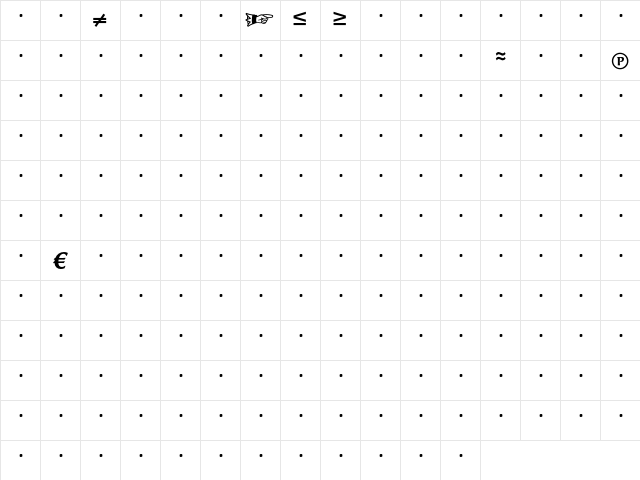
Angie BoldItalicExpert
Design Context for Angie Typeface
Angie offers clean, dependable letterforms without strong stylistic allegiance, making it a practical choice for designers who need flexibility. Its italic angle brings a sense of urgency and motion to the letterforms. The heavy weight commands attention and anchors typographic hierarchies.
Pro Tip: Use Angie for emphasis, pull quotes, and subheadings where its slanted energy can add rhythm to the layout.